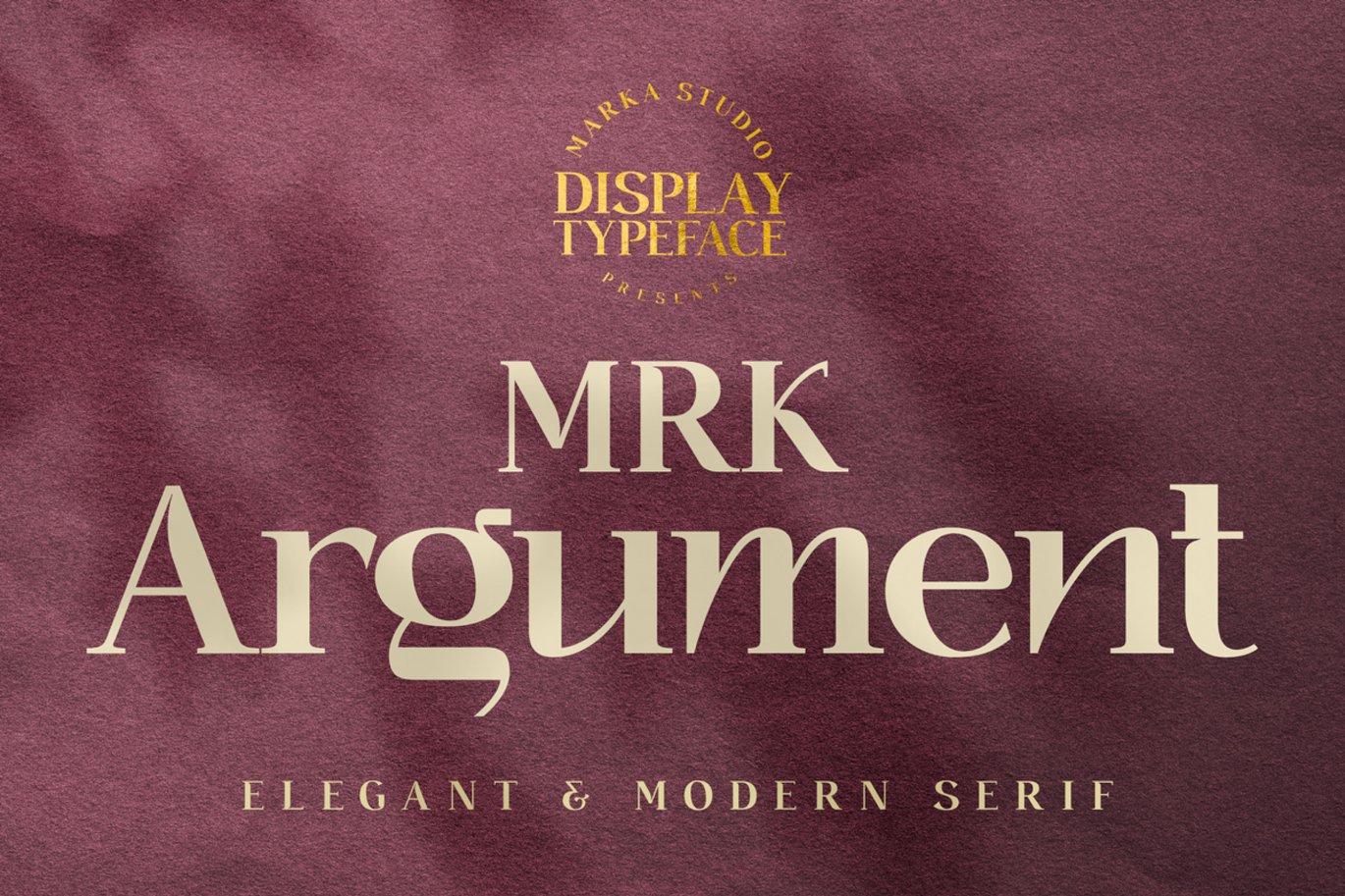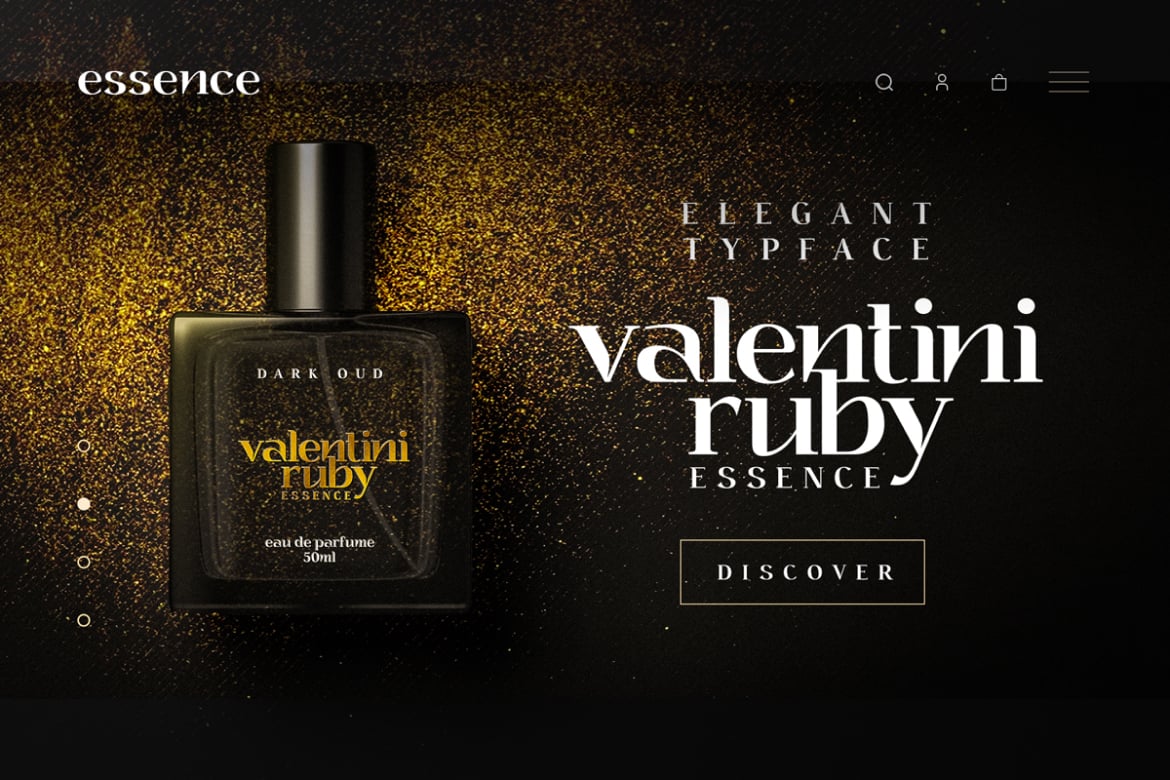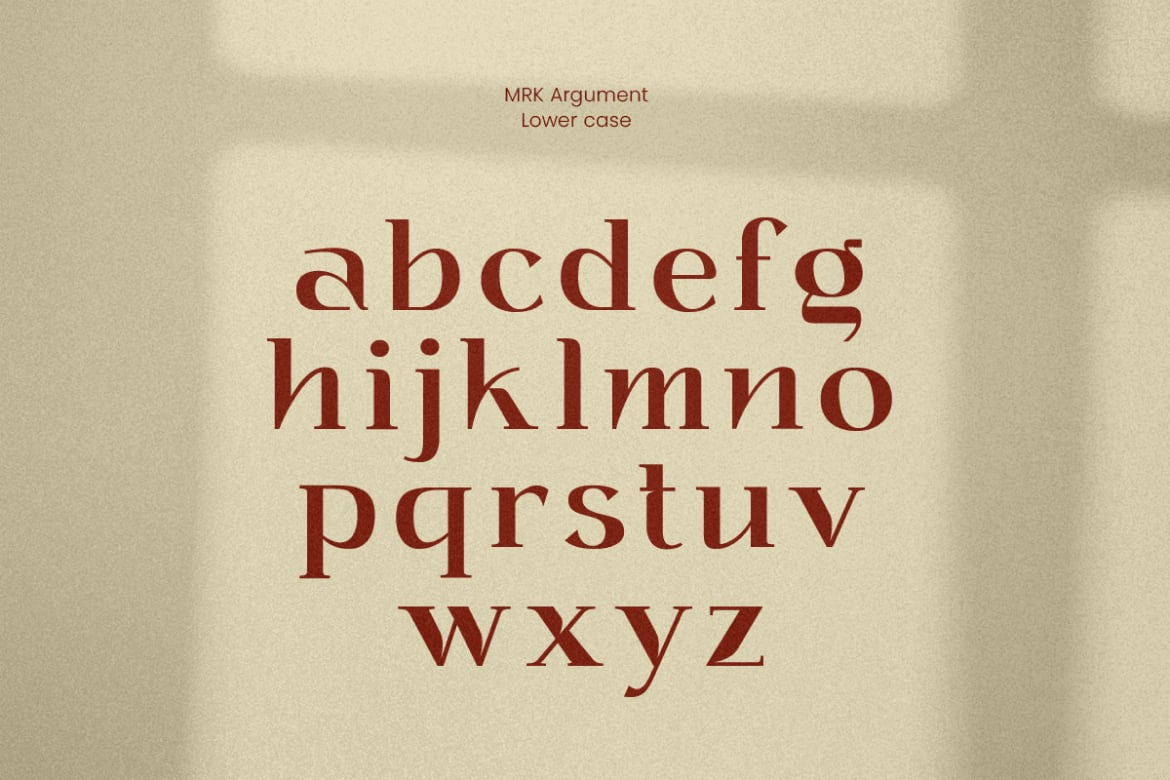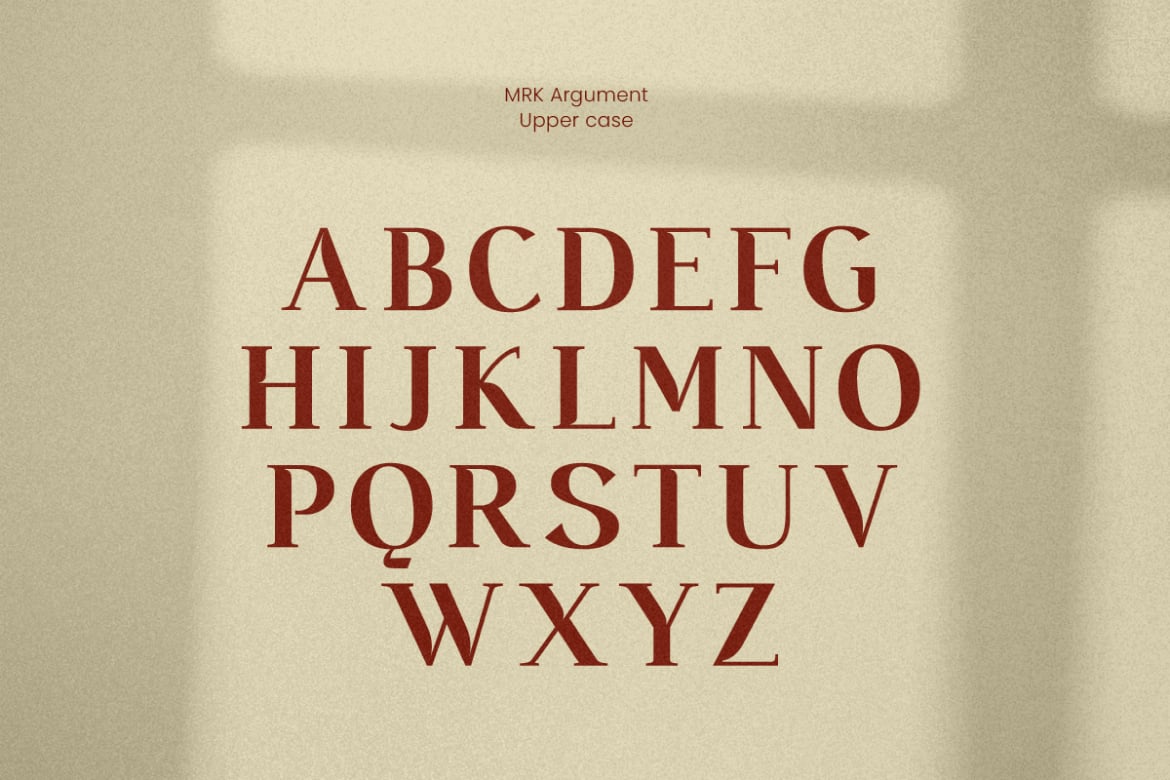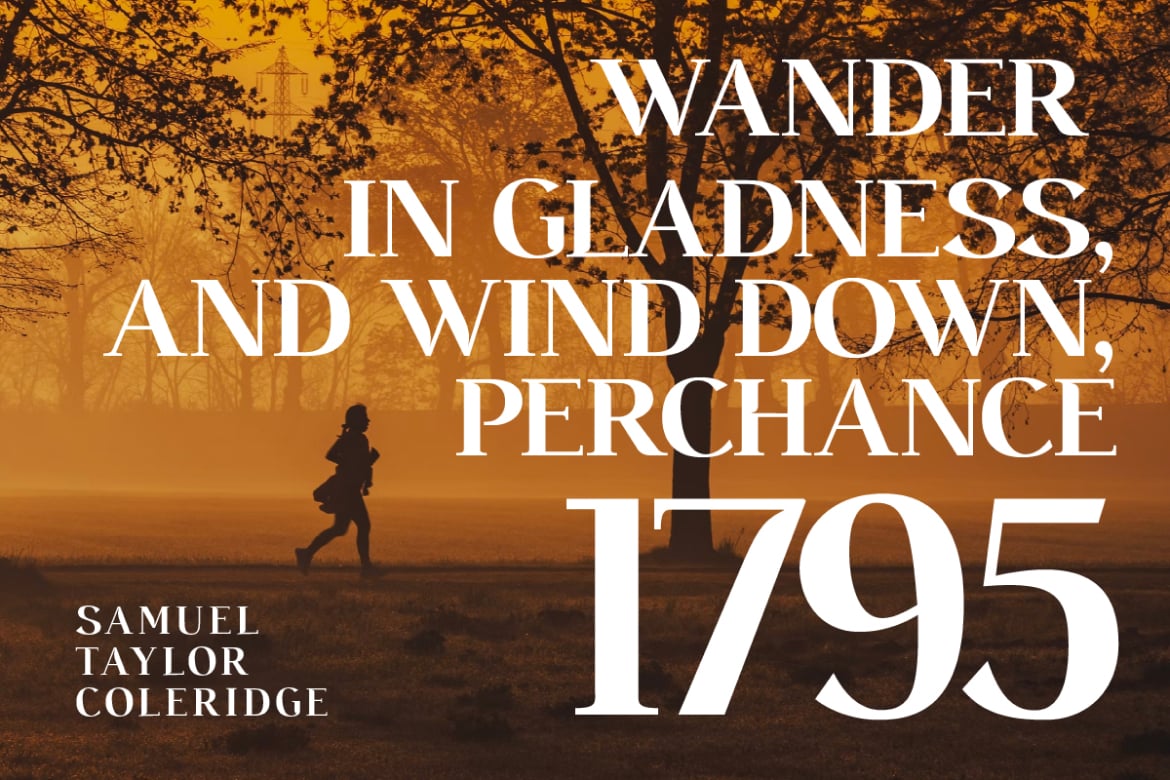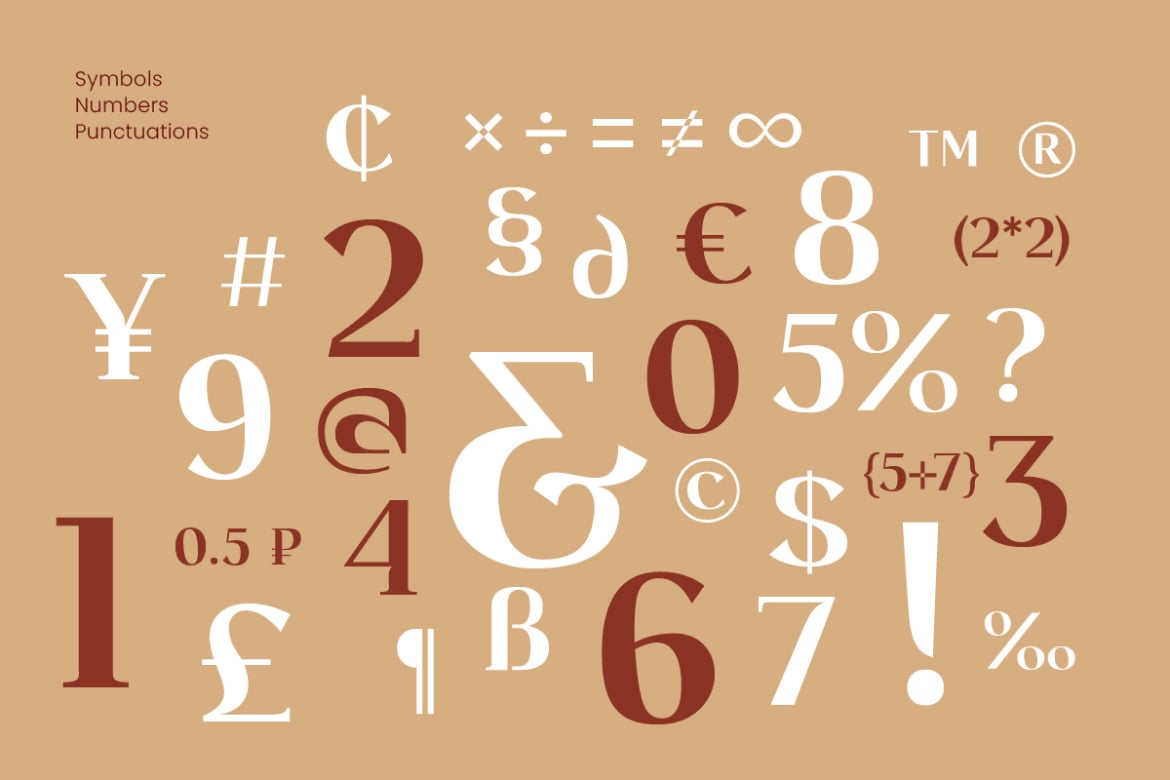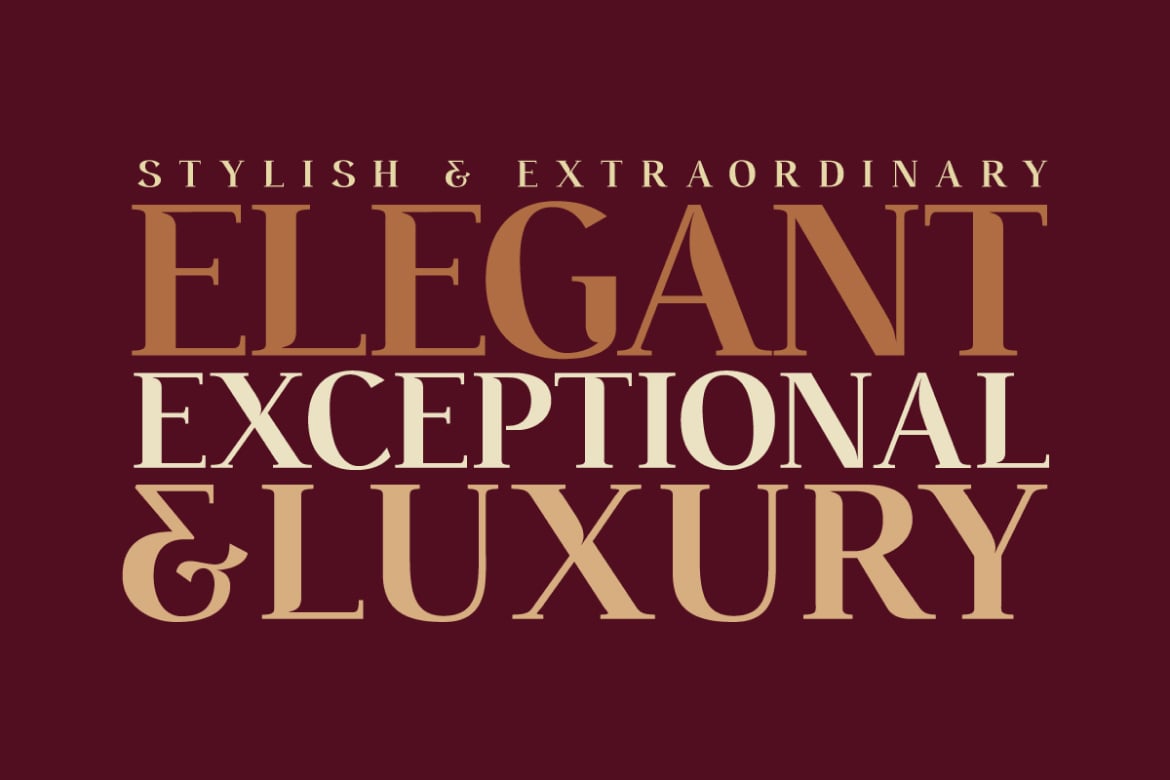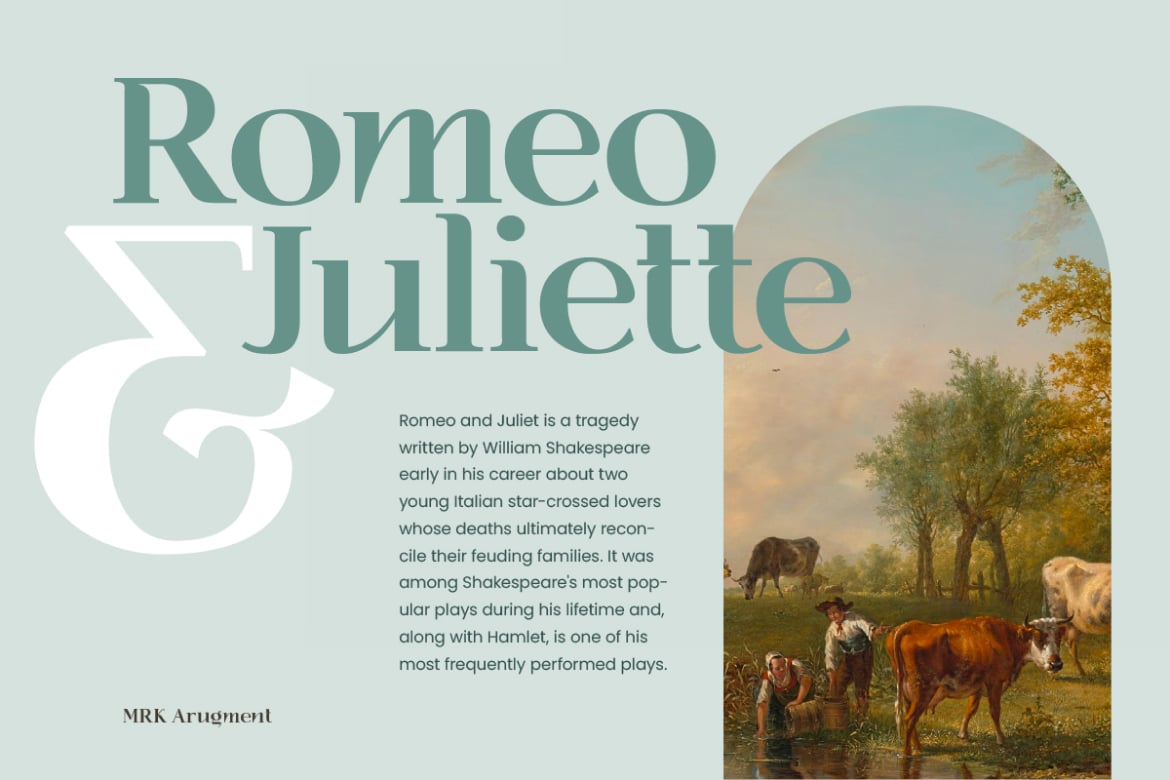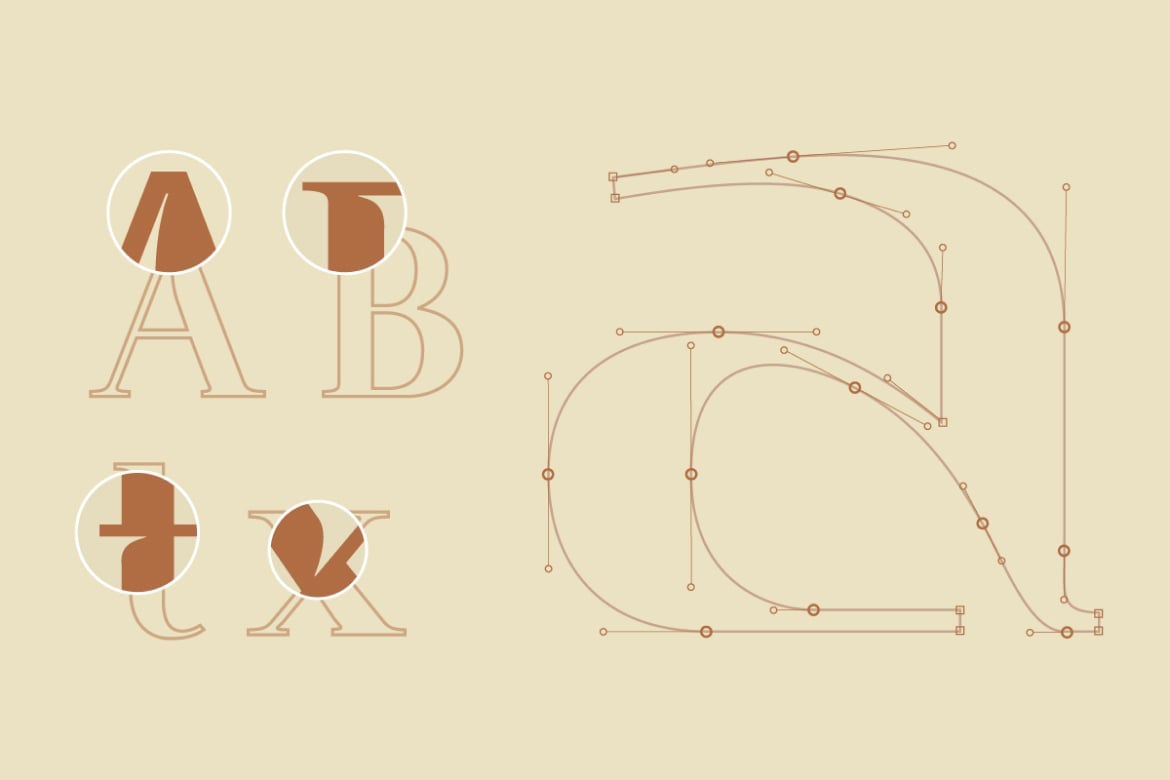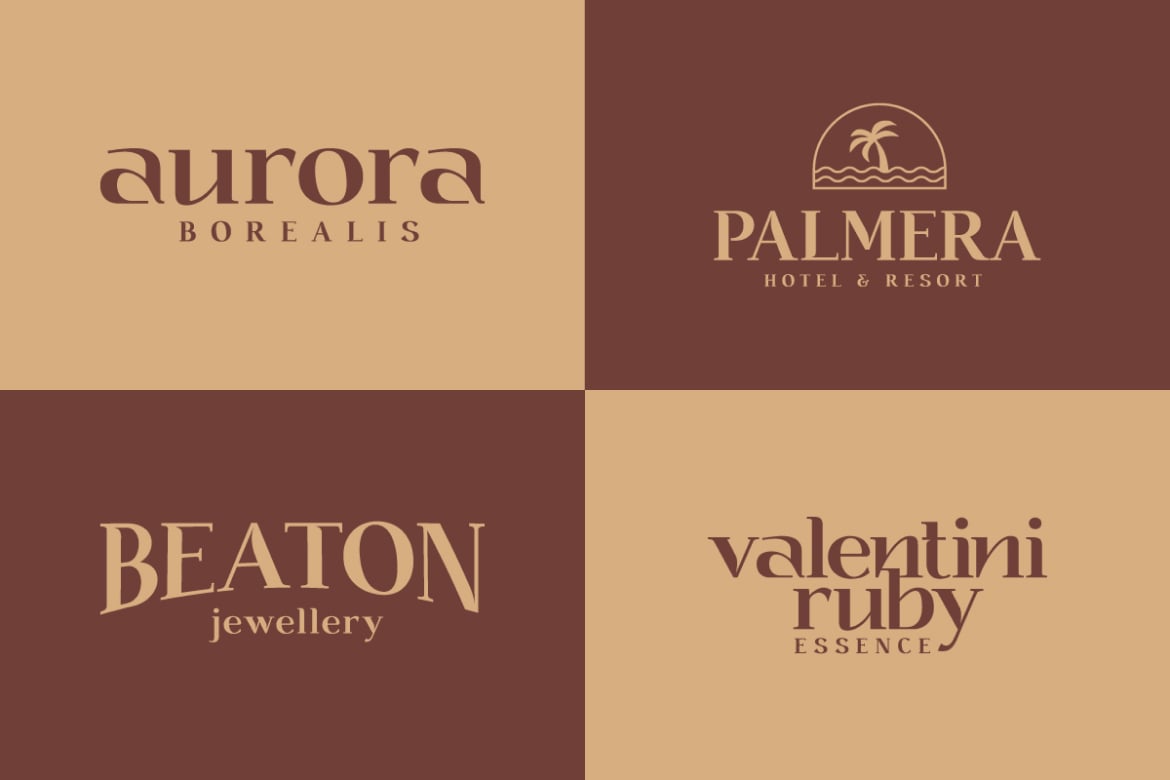
MRK Argument Modern Display Font
MRK Argument is an elegant, modern display font. The main visual style is — deeper ink traps and shoulders. It gives an exceptional and luxury look that is perfect for modern elegant brandings and for headlines. A stylish & extraordinary font containing all punctuations and supports multi languages.
This font is suitable for various purposes such as movies, posters, logos, labels, packaging, branding, editorial design, and any modern purposes.